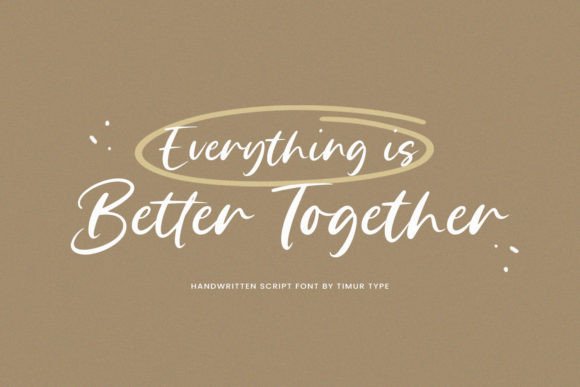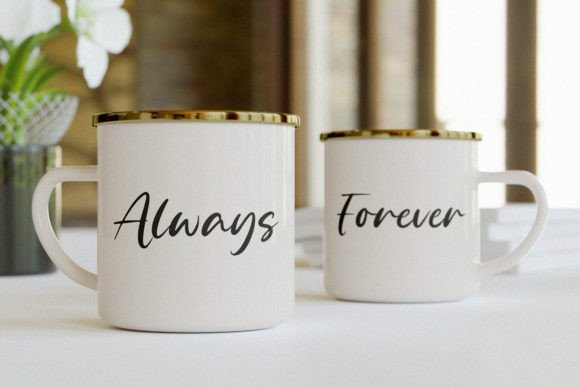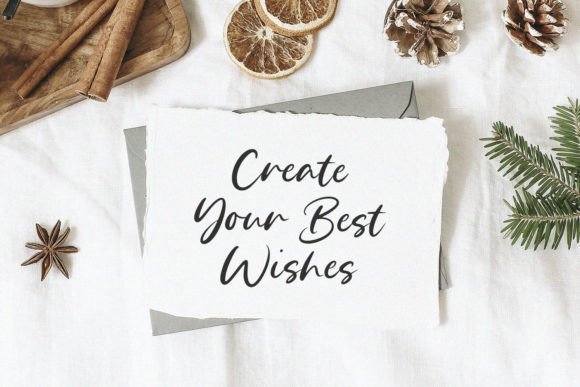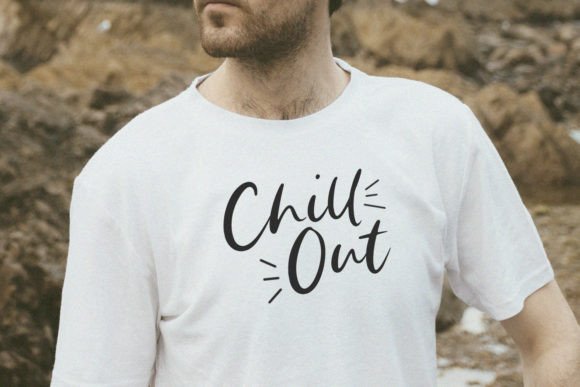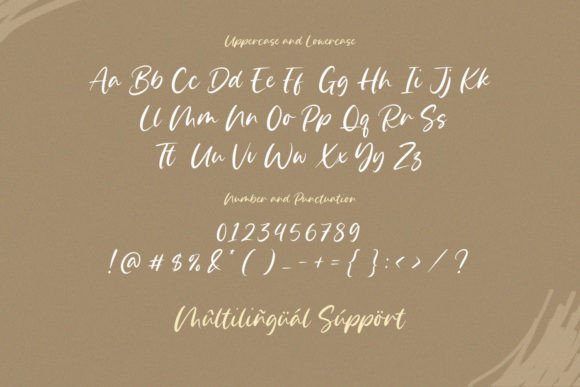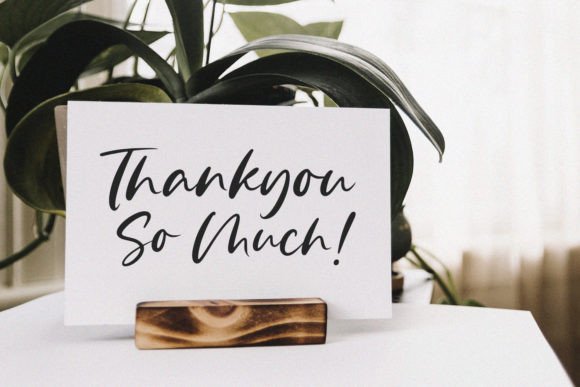
Introduction to Brother Time Font
Brother Time is a flowing handwritten font, described by an elegant touch, perfect for your favorite projects.
Key Features of Brother Time Font